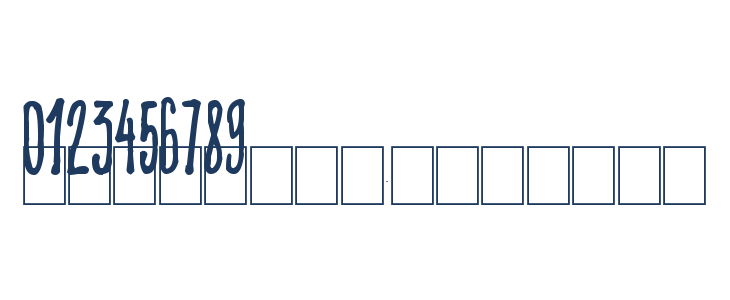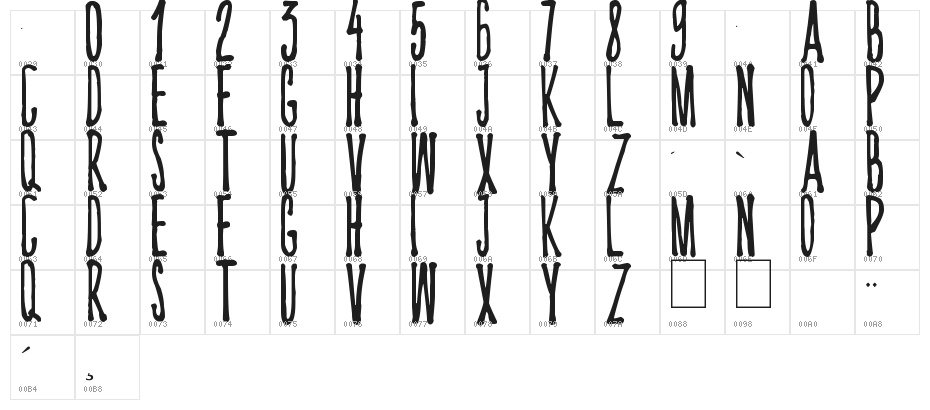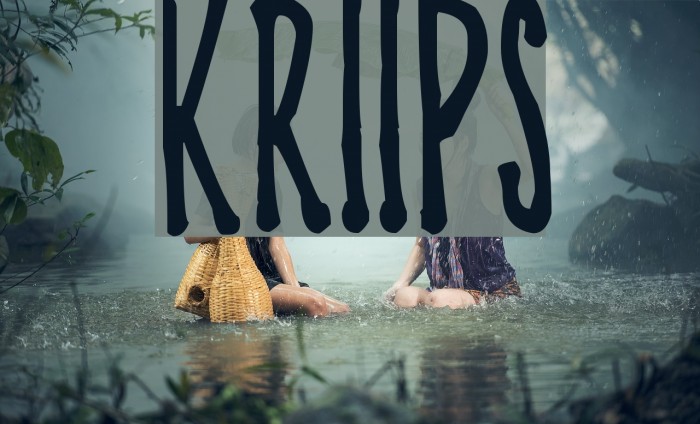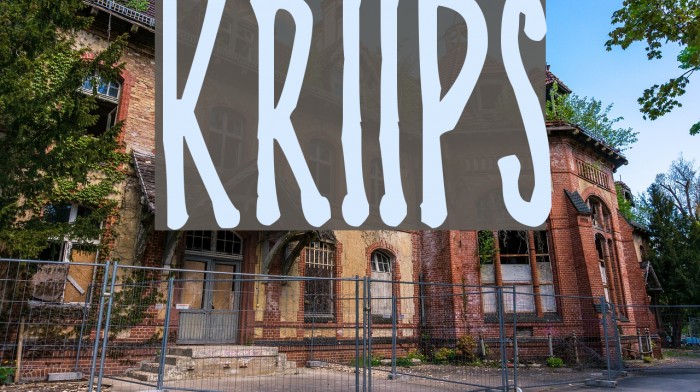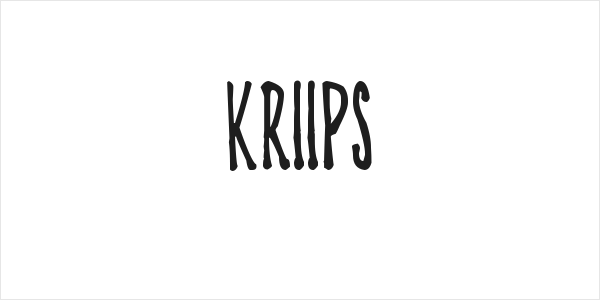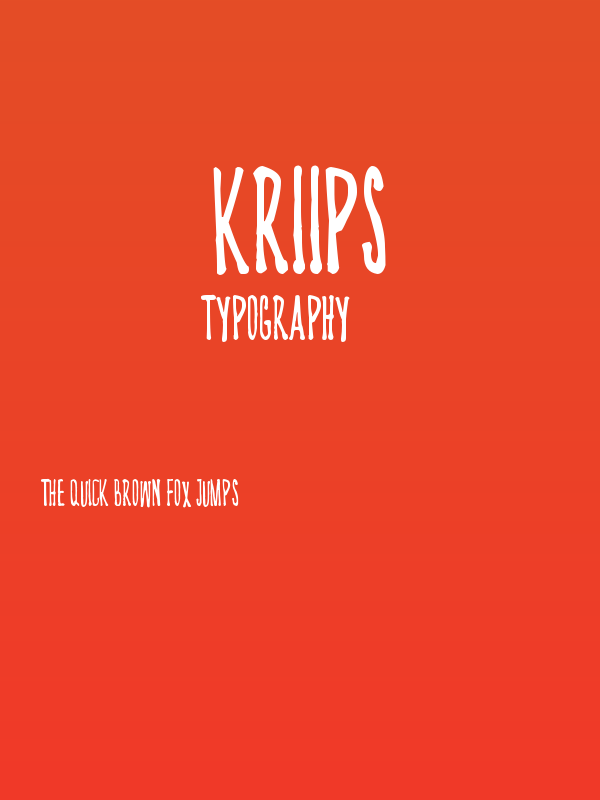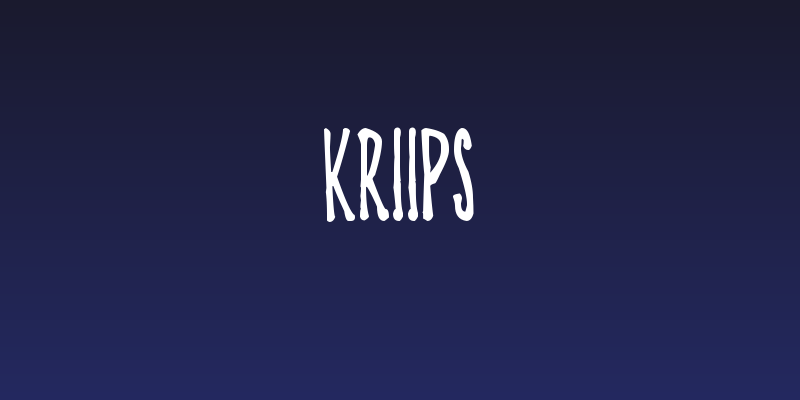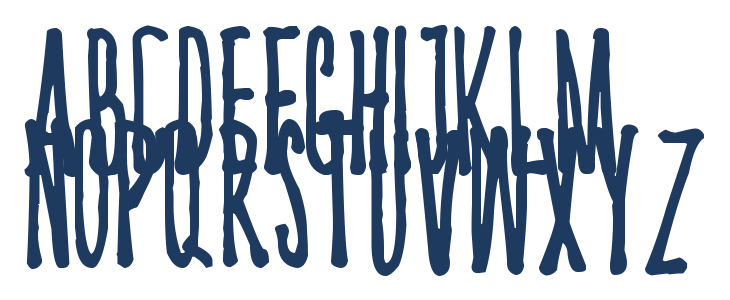
KRIIPS Font
KRIIPS Description
This font exhibits a unique, hand-drawn style with elongated, irregular strokes that give it a distinctive, artistic appearance. The characters are tall and narrow, with a playful yet slightly chaotic arrangement. The uppercase and lowercase letters maintain a consistent height, contributing to a cohesive look despite the irregularities in stroke width. The numbers and special characters follow the same design principles, adding to the font's overall quirky and creative vibe. This font is ideal for projects that require a touch of individuality and artistic flair.
A hand-drawn, artistic font with elongated, irregular strokes and a playful appearance from Handwritten fonts.
- Proposed Projects: Ideal for creative projects such as posters, album covers, or artistic branding that require a unique, hand-crafted look.
- Overall Style: Artistic
- Use Case: Logos, Posters, Creative Branding